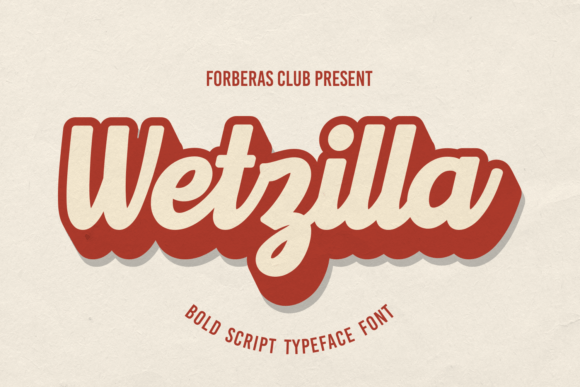
Unleash the Wetzilla Font: A Journey into Unparalleled Style and Elegance
In the realm of fashion, your logo is the centerpiece, the emblem that captures the essence of your brand and leaves an indelible mark on the minds of your clientele. With Wetzilla, you hold the key to unlocking a world of boundless creativity and distinction. This exquisitely crafted, hand-lettered script font is the creative spark you need to ignite your designs, captivating audiences with its timeless charm and undeniable sophistication.
Wetzilla's meticulously designed letterforms evoke a sense of exclusivity and elegance, seamlessly blending classic aesthetics with a touch of contemporary flair. Each stroke exudes a sense of artistry, as if penned by a master calligrapher, evoking the allure of handwritten notes and personalized correspondence. Its graceful curves and flowing lines lend an air of sophistication that is sure to leave a lasting impression.
Immerse yourself in the versatility of Wetzilla, a font that adapts to your every creative whim. Whether you're crafting logos for high-end fashion houses, designing wedding invitations that exude romance and elegance, or creating eye-catching social media posts that demand attention, Wetzilla effortlessly elevates your designs to new heights.
With Wetzilla at your fingertips, you'll find endless opportunities to express your creativity and captivate your audience. From bold and striking logos that command attention to delicate and charming invitations that evoke a sense of nostalgia, Wetzilla's versatility knows no bounds.
Embark on a design journey like no other, where elegance and creativity intertwine to produce masterpieces that resonate with your audience. Let Wetzilla be your muse, your creative companion, as you craft designs that leave a lasting legacy.